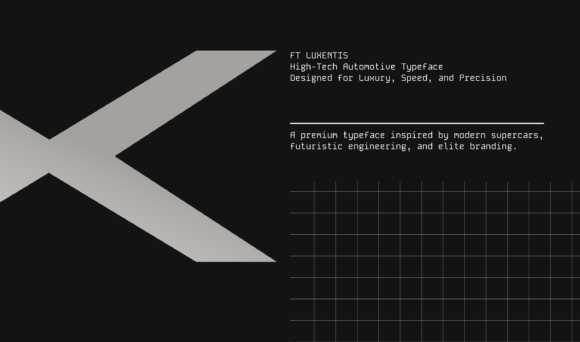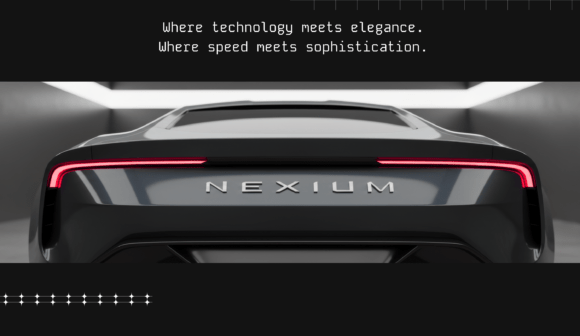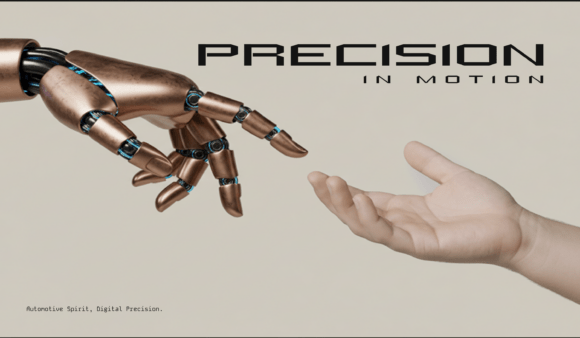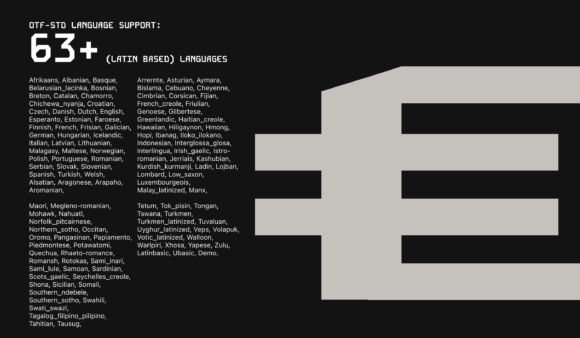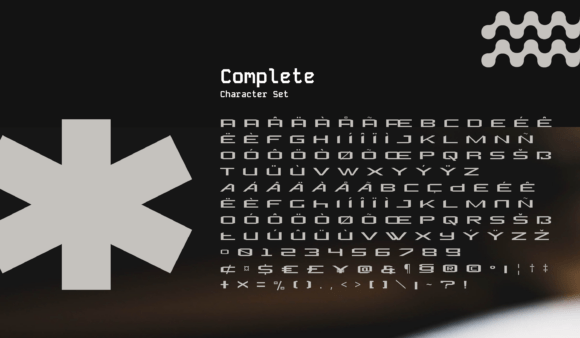
Introducing FT Luxentis Font: The Epitome of Luxury and Performance
In the realm of typography, few fonts manage to convey the perfect blend of power, precision, and elegance. FT Luxentis, however, stands out as a premium high-tech typeface that embodies the essence of luxury automotive design, futuristic engineering, and modern technology. This exceptional font is crafted for brands that demand a bold visual identity that exudes speed, exclusivity, and sophistication.
The Inspiration Behind FT Luxentis
FT Luxentis draws its inspiration from the world of supercars, electric vehicles, and cutting-edge innovation. The typeface boasts sharp geometry, aerodynamic forms, and balanced proportions that reflect the spirit of high-performance vehicles and advanced technology. Every character is meticulously designed to communicate strength and refinement simultaneously, making Luxentis the perfect choice for premium branding, automotive identities, high-end technology products, and futuristic visual systems.
A Font that Makes a Statement
FT Luxentis is more than just a font – it’s a statement of luxury and performance. It’s designed for brands that strive to move forward, embracing innovation and positioning themselves at the top of their industry. This typeface speaks to those who demand the best, and its presence is sure to elevate any brand’s visual identity.
Design and Versatility
FT Luxentis is designed with clarity and versatility in mind. Its clean lines, precise curves, and carefully crafted characters ensure that it performs beautifully in both large display sizes and refined branding applications. Whether you’re looking to create a stunning logo, a sleek website, or a high-end marketing campaign, Luxentis is the perfect choice.
Key Features of FT Luxentis
- Sharp Geometry: FT Luxentis features sharp, angular lines that evoke the precision and power of high-performance vehicles.
- Aerodynamic Forms: The typeface’s aerodynamic shapes and curves are inspired by the world of supercars and electric vehicles.
- Balanced Proportions: Luxentis boasts balanced proportions that ensure perfect harmony between strength and refinement.
- High-Tech Feel: The font’s futuristic design makes it perfect for brands that operate in the high-tech industry.
Applications of FT Luxentis
FT Luxentis is an incredibly versatile typeface that can be used in a wide range of applications, including:
- Premium Branding: Luxentis is perfect for creating high-end logos, trademarks, and brand identities.
- Automotive Identities: The typeface’s inspiration from supercars and electric vehicles makes it a natural fit for automotive brands.
- High-End Technology Products: FT Luxentis is ideal for tech brands that want to convey innovation, precision, and performance.
- Futuristic Visual Systems: The font’s futuristic design makes it perfect for visual systems that require a bold, high-tech look.
FT Luxentis is a game-changing typeface that embodies the perfect blend of luxury, performance, and innovation. Its unique design, versatility, and wide range of applications make it an essential tool for designers and brands that strive for excellence. Whether you’re looking to create a stunning brand identity, a high-end marketing campaign, or a futuristic visual system, FT Luxentis is the perfect choice.